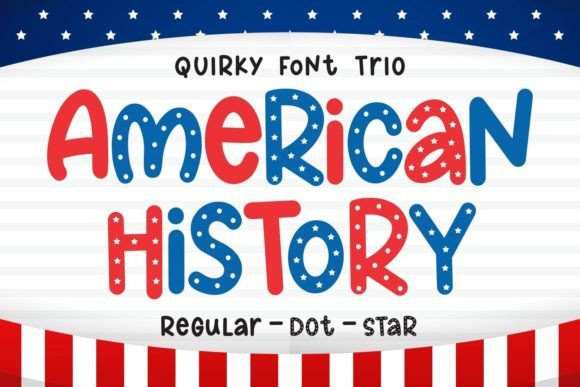
American History Font: Add a Touch of Fun and Joyfulness to Your Designs
Are you looking for a font that embodies the spirit of fun and joyfulness? Look no further than the American History Font. This cool and fun display font is designed to add a touch of cuteness and jollity to your designs, making it perfect for a wide range of projects. In this article, we’ll explore the features and benefits of the American History Font, and show you how to use it to create spectacular designs that will capture the attention of your audience.
Key Features of American History Font
- Cute and Jolly Design: The American History Font features a unique and playful design that is sure to add a touch of fun and joyfulness to your designs.
- Highly Versatile: This font is incredibly versatile, making it perfect for a wide range of projects, from crafting and branding to book covers and marketing materials.
- Personalized Look: With the American History Font, you can add a personalized touch to your designs, making them stand out from the crowd.
Design Ideas Using American History Font
The American History Font is perfect for a wide range of design projects, including:
- Crafting Projects: Use the American History Font to add a personalized touch to your crafting projects, such as scrapbooking, card making, and DIY home decor.
- Branding and Logo Design: Create a unique and memorable logo for your business using the American History Font.
- Book Covers and Stationery: Use the American History Font to create eye-catching book covers, stationery, and marketing materials.
- Marketing and Magazines: Add a touch of fun and joyfulness to your marketing materials and magazine designs with the American History Font.
- Home Decor: Use the American History Font to create beautiful frames, signs, and other home decor items.
Tips and Tricks for Using American History Font
Here are some tips and tricks for getting the most out of the American History Font:
- Experiment with Different Colors: Try out different colors and color combinations to find the perfect look for your design.
- Play with Font Sizes: Experiment with different font sizes to create visual interest and hierarchy in your design.
- Add Graphics and Images: Use graphics and images to enhance your design and add visual interest.
- Keep it Simple: Don’t be afraid to keep your design simple and clean, using the American History Font as a focal point.
Benefits of Using American History Font
Here are just a few benefits of using the American History Font:
- Unique and Memorable Designs: The American History Font helps you create unique and memorable designs that will capture the attention of your audience.
- Increased Creativity: With the American History Font, you’ll have the freedom to experiment and try out new and creative design ideas.
- Professional-Looking Designs: The American History Font helps you create professional-looking designs that will impress your audience.
In conclusion, the American History Font is a fun and versatile font that is perfect for a wide range of design projects. With its cute and jolly design, highly versatile style, and ease of use, this font is sure to become a favorite among designers. Whether you’re working on a crafting project, branding and logo design, or marketing materials, the American History Font is the perfect choice. So why wait? Download the American History Font today and start creating spectacular designs that will capture the attention of your audience!